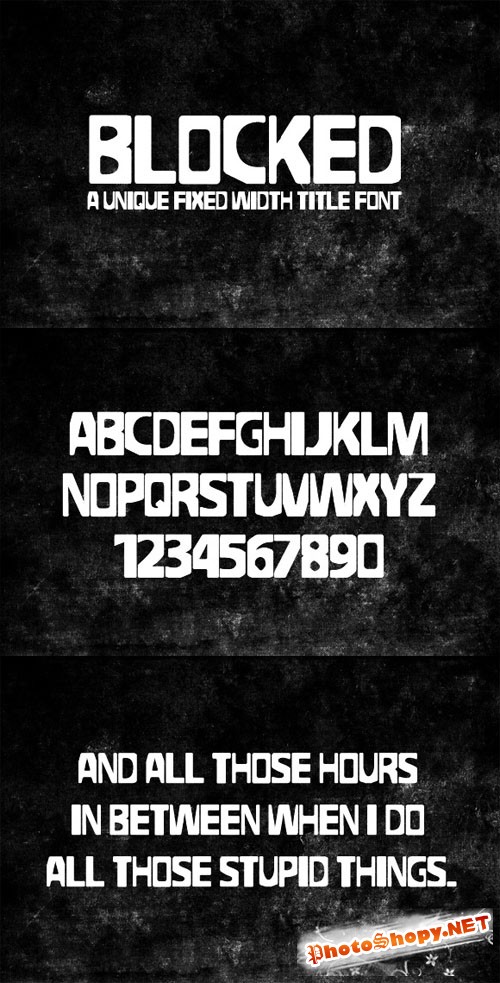
| WeGraphics - Blocked – A Fixed Width Title Font | |
![]() WeGraphics - Blocked – A Fixed Width Title Font Blocked Letter is a fixed width bold title font. Download it and use it to create a uniquely styled header. TTF | 10 Kb Info: http://wegraphics.net/downloads/blocked-a-fixed-width-title-font/ In order to comfortably and with maximum speed to download my files, I recommend you get premium access to the file-sharing services such as Letitbit and Rapidgator (listed below). When you use the premium access, download speed is limited only by your communication channel. We also strongly recommend to buy a premium-only access to the sites of file-sharing services, the only way you're guaranteed to not be deceived! Download free WeGraphics - Blocked – A Fixed Width Title Font: |